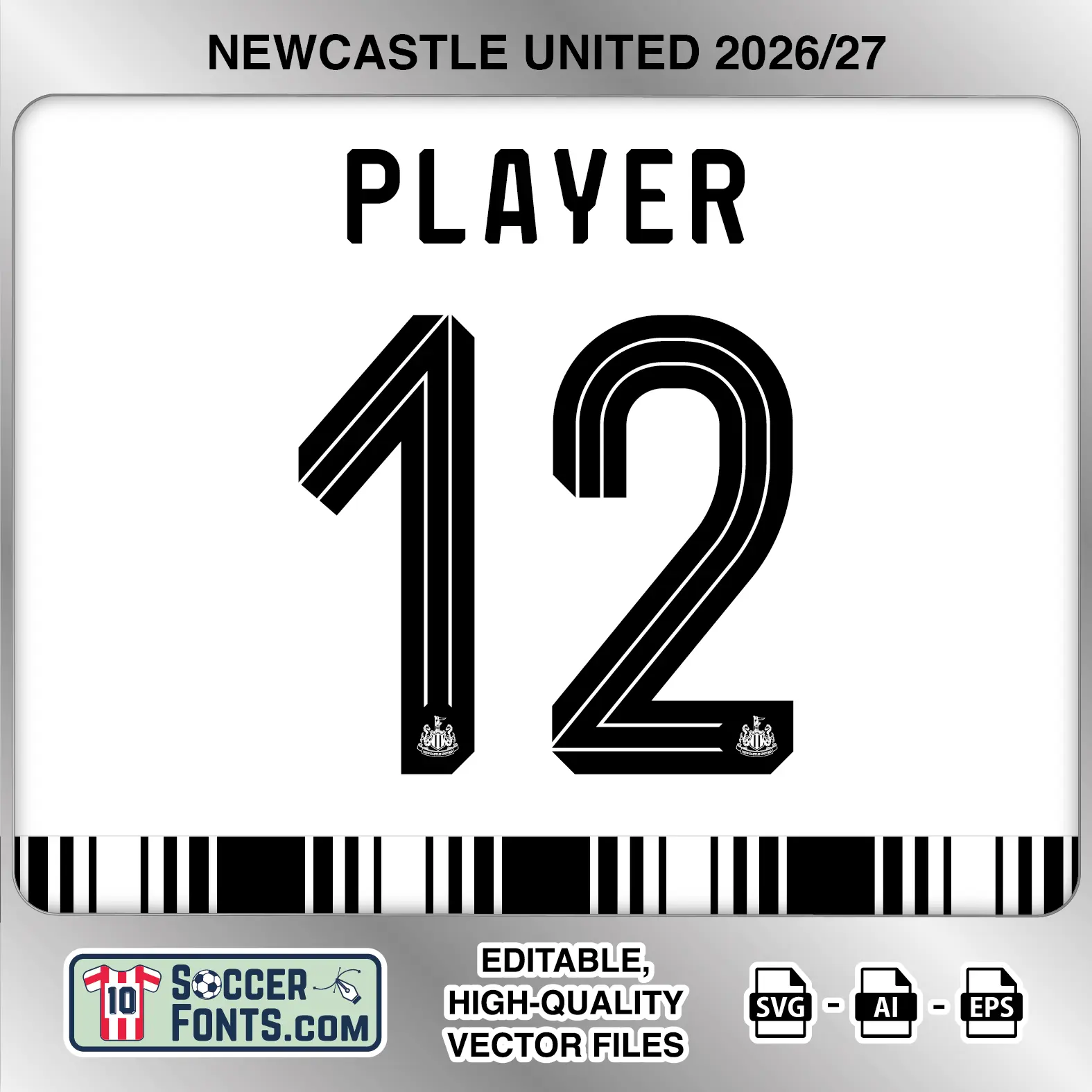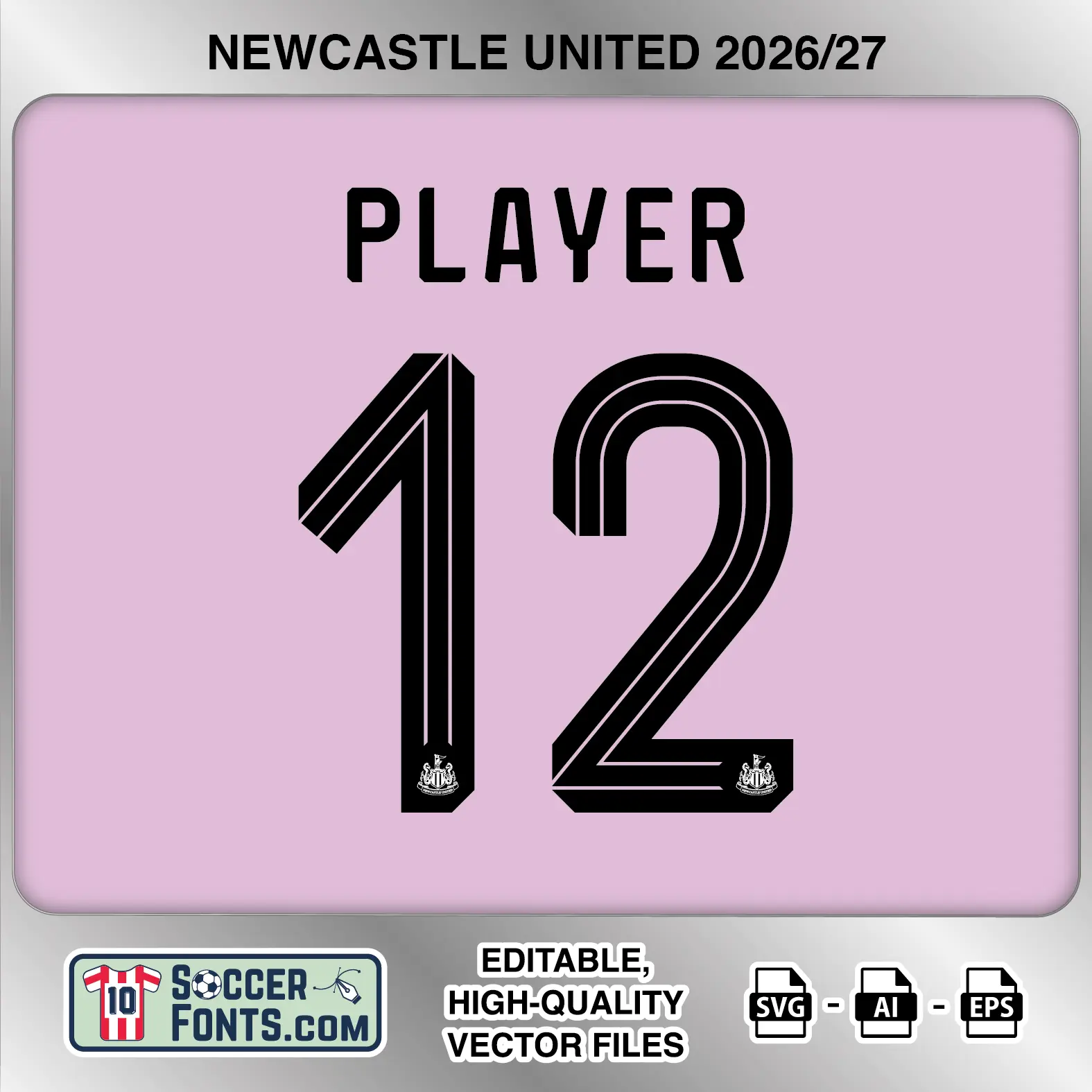
About Newcastle United 2026-27 Font
Download Newcastle United 2026-27 font, an editable soccer jersey lettering design in vector format inspired by the Newcastle United kit style used during the 2026-27 football season. The collection covers home, away and third shirt applications and is prepared for football shirt recreations, custom jersey projects, football kit mockups and sports graphic design workflows.
Visual Identity of the Font Design :
The lettering combines a narrow uppercase player-name alphabet with unusually linear, decorative numerals. Names use tall condensed characters with mostly straight sides and small angular cuts, while the numbers are much larger and constructed around a continuous multi-line appearance. Two fine parallel inset lines follow the main shape of each numeral, producing a distinctive triple-stripe effect through straight sections, diagonals and rounded curves.
The 1 uses a long vertical stem with a sharply angled upper section, the 2 has a broad rounded top flowing into a sweeping diagonal, the 3 mixes angular horizontal sections with a rounded lower curve, and the 4 uses a large open triangular construction. The 8, 9 and 0 have elongated rounded counters. A small Newcastle United crest appears near the bottom of every numeral. The previews show black lettering on the home and pink third applications, while the dark navy away treatment uses white lettering. An extensive accented uppercase character set is also included.
Context of 2026-27 Season for Newcastle United :
The Newcastle United 2026-27 Font belongs to the beginning of a new era at St. James’ Park. Matthias Jaissle replaced Eddie Howe as head coach in July 2026, following a period in which Howe delivered the 2025 Carabao Cup and took Newcastle back into Champions League football. The summer that followed brought significant squad changes, including eight first-team arrivals, with Belgian forward Matias Fernandez-Pardo joining from Lille on deadline day.
On the pitch, Newcastle opened the Premier League campaign against Liverpool before recording a 2-0 away victory over Tottenham Hotspur, with Anthony Elanga and Yoane Wissa scoring. Their September schedule also included meetings with Bournemouth, Leeds United and Hull City, with Newcastle beating Hull 2-1 at St. James’ Park on 19 September. The Newcastle United 2026-27 Font therefore accompanies a season shaped by a new coaching direction and a refreshed squad.
With distinctive home, away and third applications represented in the package, the Newcastle United 2026-27 Font provides season-specific lettering artwork for recreating the club’s different 2026-27 shirts.
Newcastle United 2026-27 Font